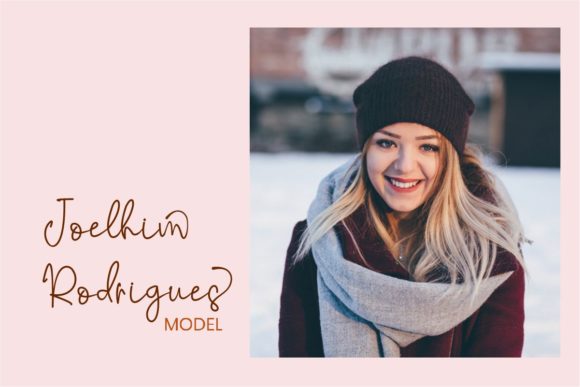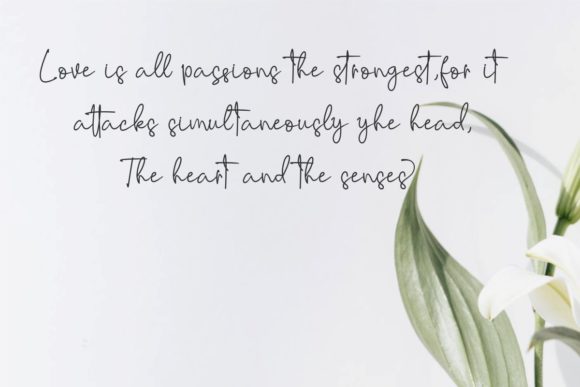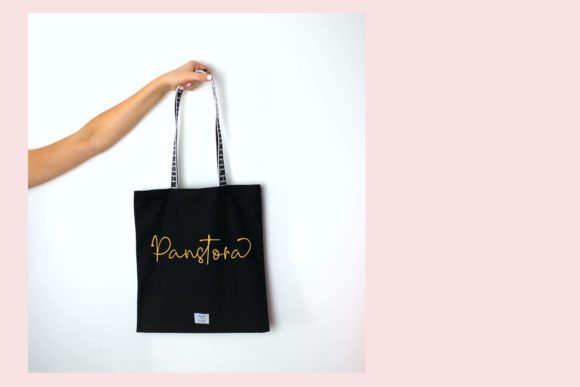
Introduction to Riujin Palluy Font
Have you ever found yourself stuck in the midst of a creative project, desperately searching for that perfect finishing touch? For designers, it’s a familiar feeling – the one where the entire design falls into place, but just needs a subtle hint of elegance to bring it to life. That’s where the Riujin Palluy Font comes in – a delicate, high-quality, and free download that can instantly elevate your design to the next level.
With its beautiful and well-balanced characters, the Riujin Palluy Font is the perfect design resource for any creative project. Whether you’re working on a digital art piece or a print design, this font is sure to add a touch of sophistication and style. And with a transparent background, you can easily integrate it into your design without any distractions.
Key Features of Riujin Palluy Font
- High-quality design resource suitable for creative projects
- Unique, elegant script font with a transparent background
- Excellent for use in logos, invitations, and other design elements
Honest Review: Riujin Palluy Font
I recently stumbled upon the Riujin Palluy Font and was immediately drawn to its unique, high-quality design. As a designer, I’m always on the lookout for exceptional free download resources that can elevate my creative projects. This font definitely delivers.
- ✨ Unique and elegant design style that adds a touch of sophistication to any project
- ✨ High-quality vector graphics ensure crisp, clear text rendering
- ✨ Transparent background makes it easy to integrate with any design
One of the things that stood out to me about the Riujin Palluy Font is its versatility. I’ve used it for a variety of projects, from logos to brochures, and it always looks great.
- ⚠️ Limited character set, which may not be suitable for longer blocks of text
- ⚠️ Not as customizable as some other fonts, which may limit its use in certain design scenarios
Overall, I’m really impressed with the Riujin Palluy Font. While it may have some limitations, its unique design and high-quality rendering make it a valuable addition to any designer’s toolkit.
Riujin Palluy Font is a versatile design resource that can be used in various creative projects, such as logos, brochures, business cards, and social media graphics. Its transparent background makes it ideal for designs that require a high level of customization.